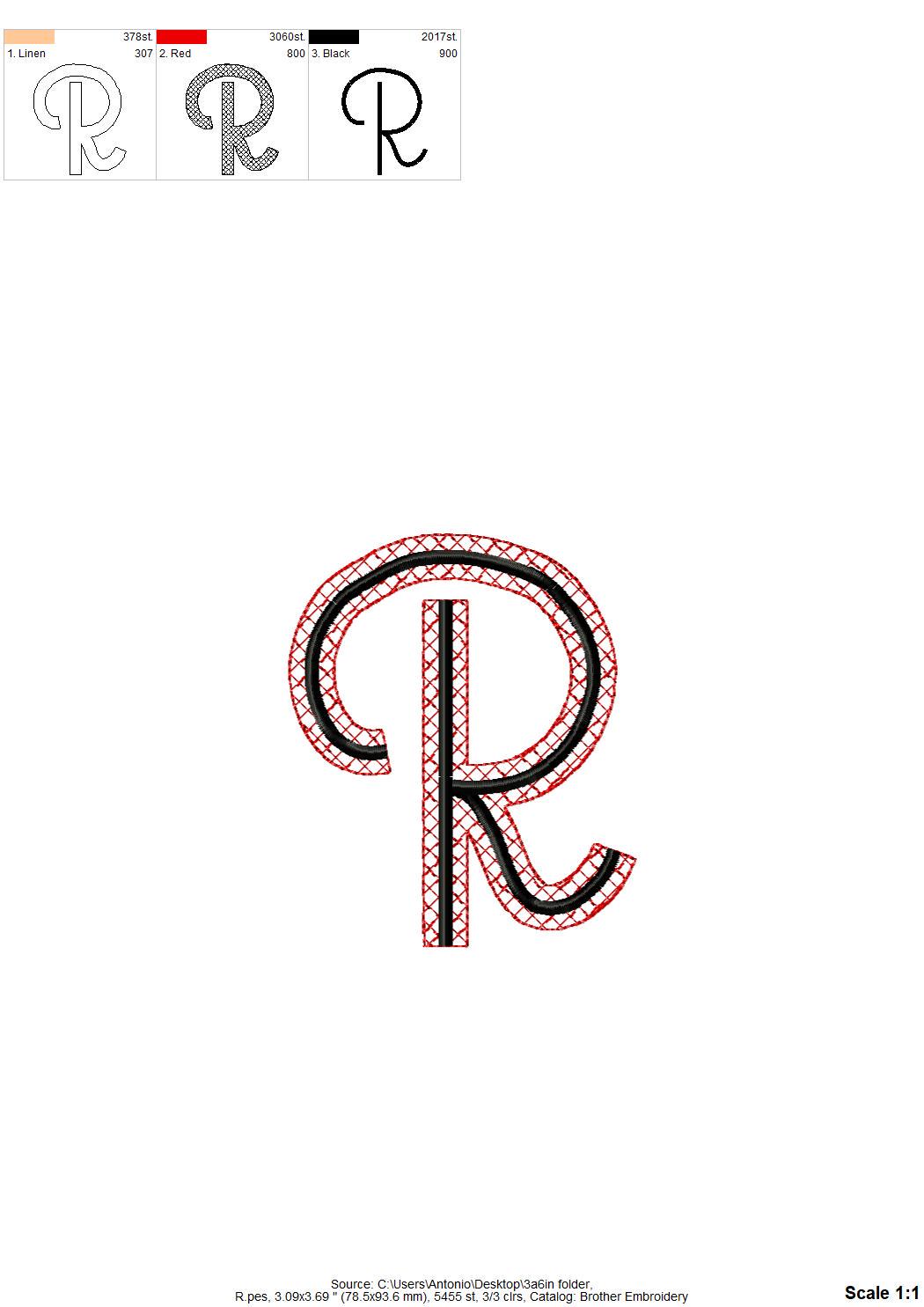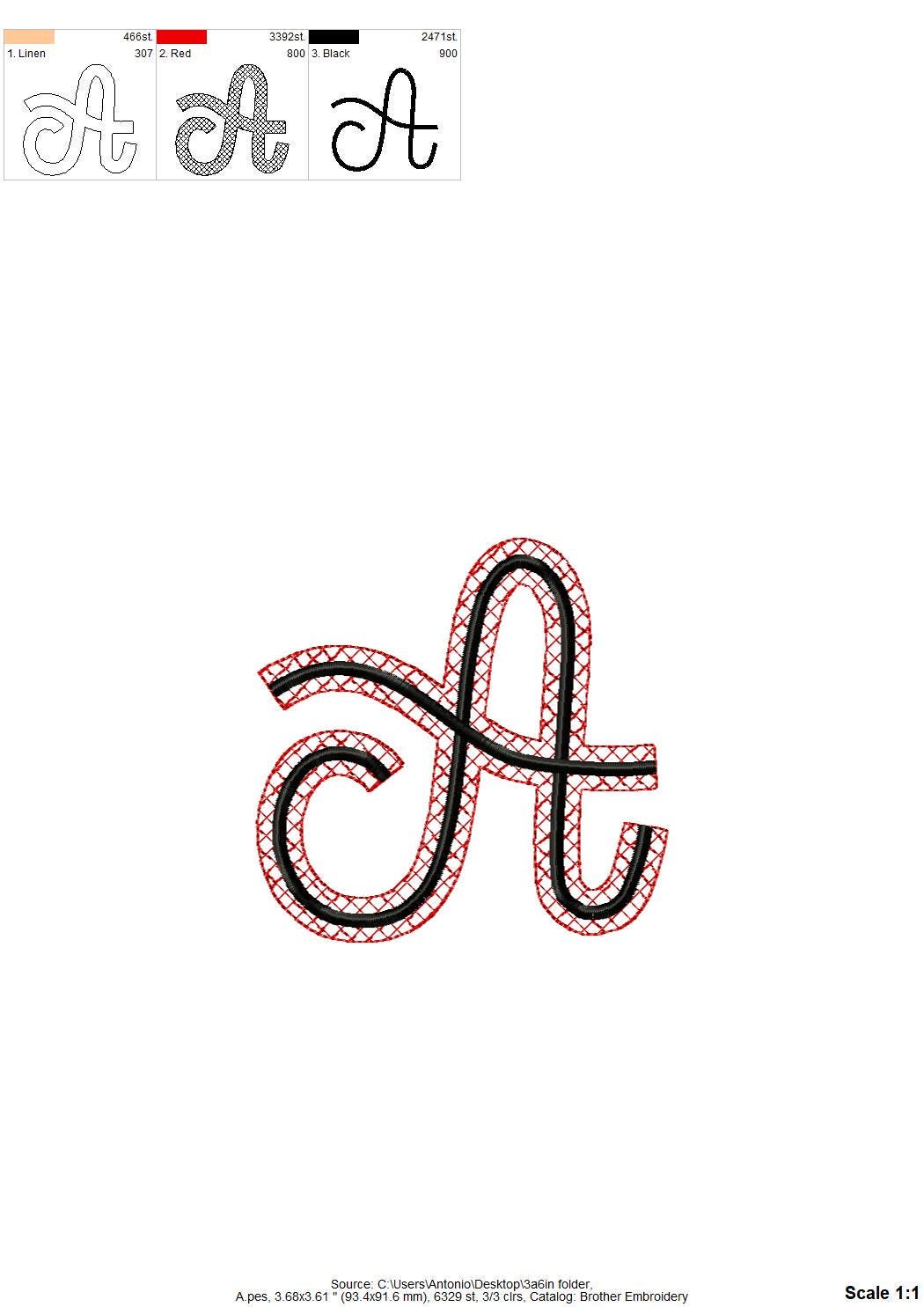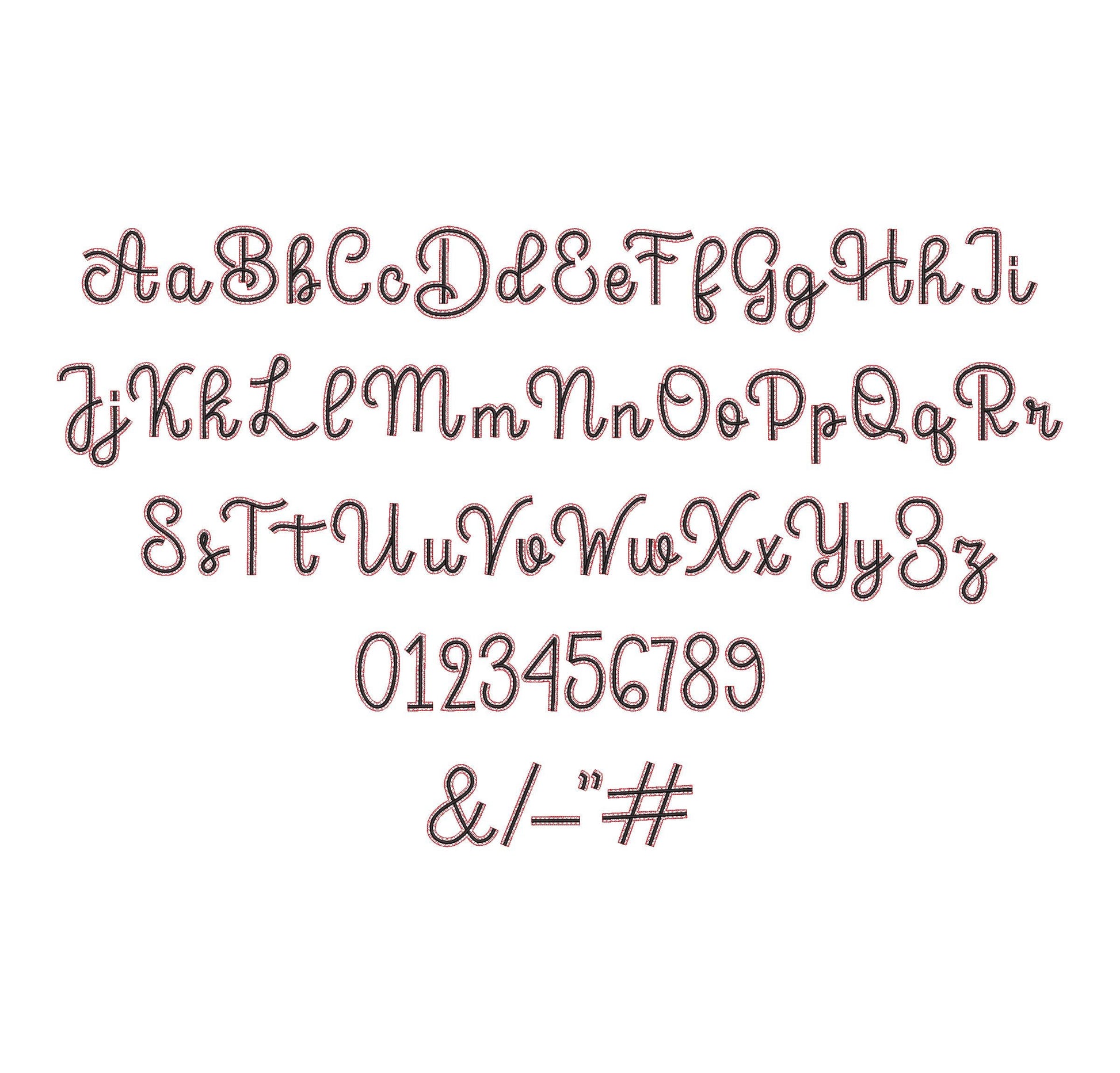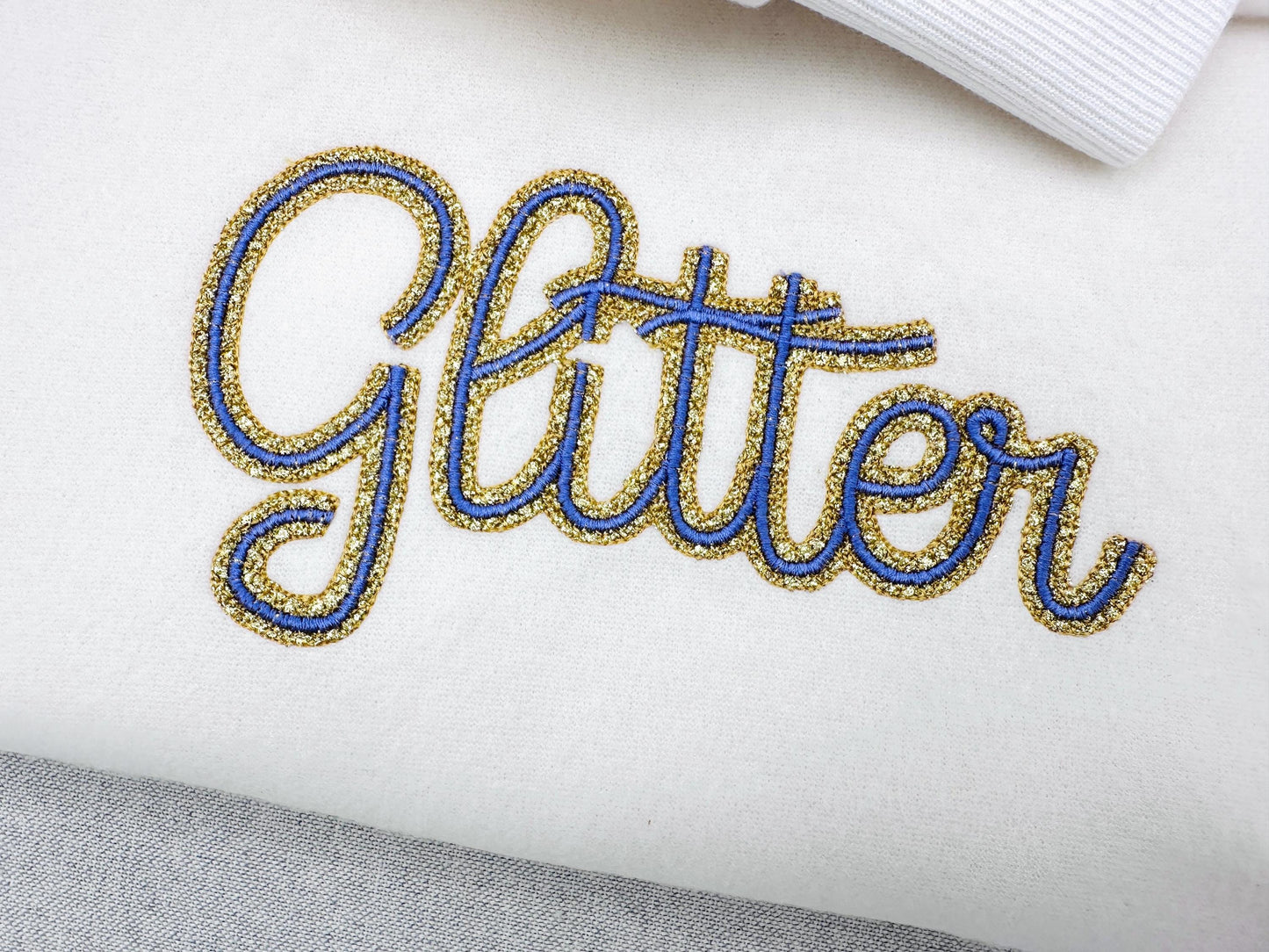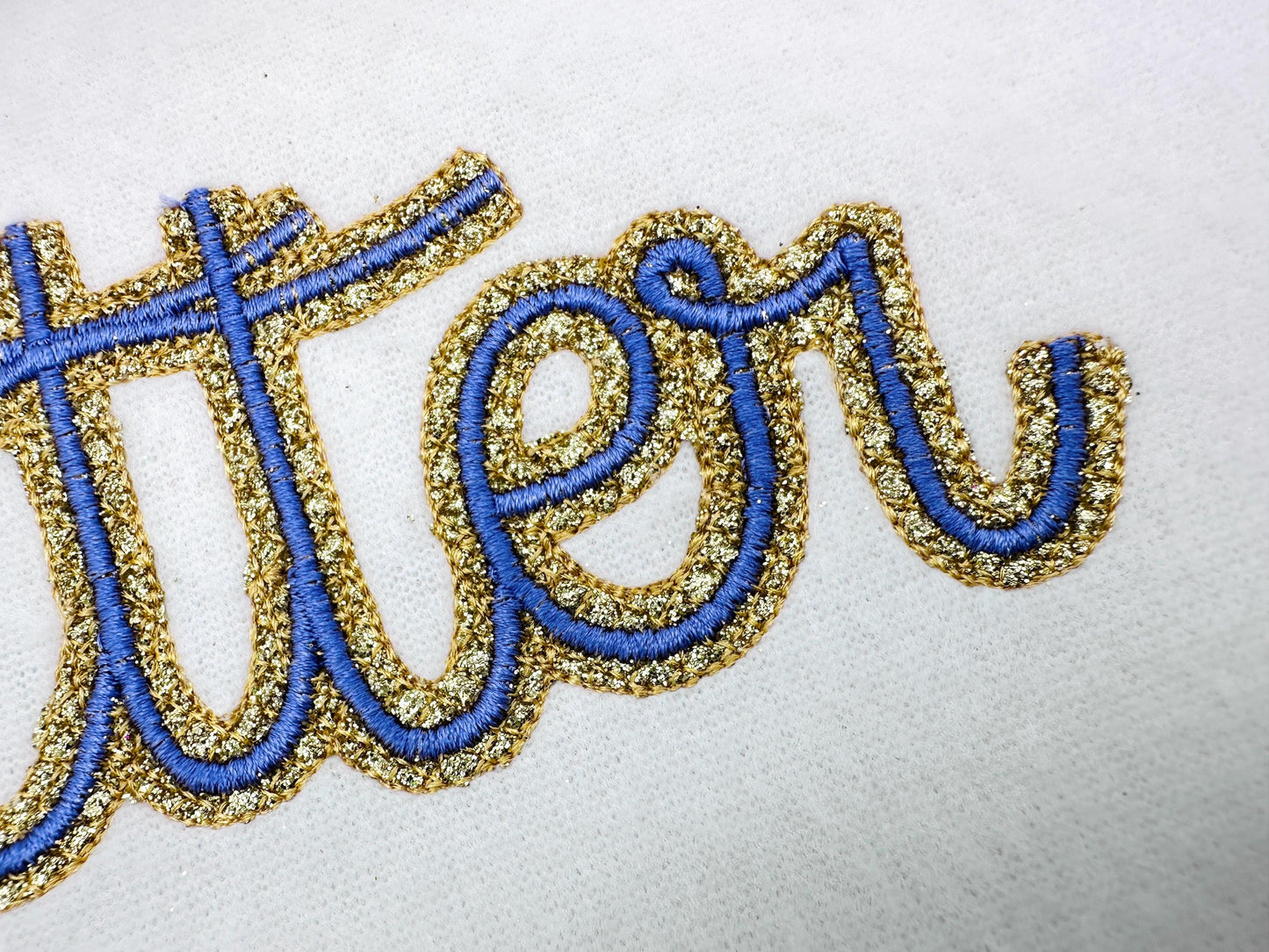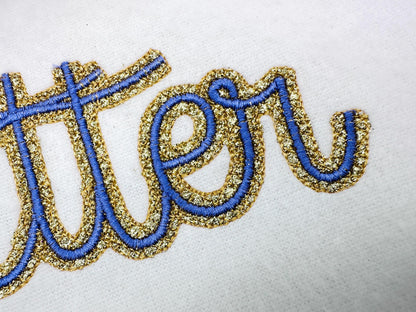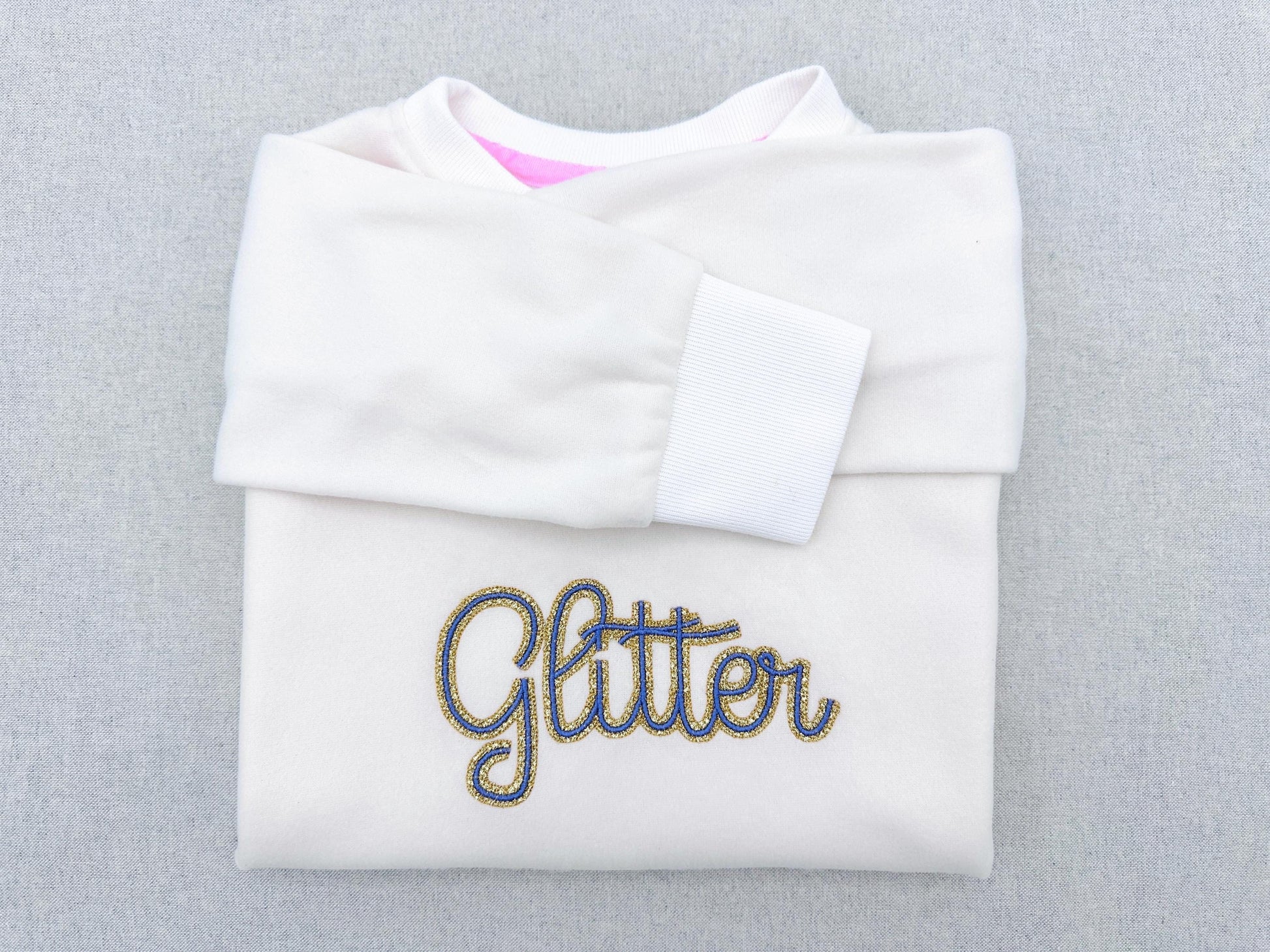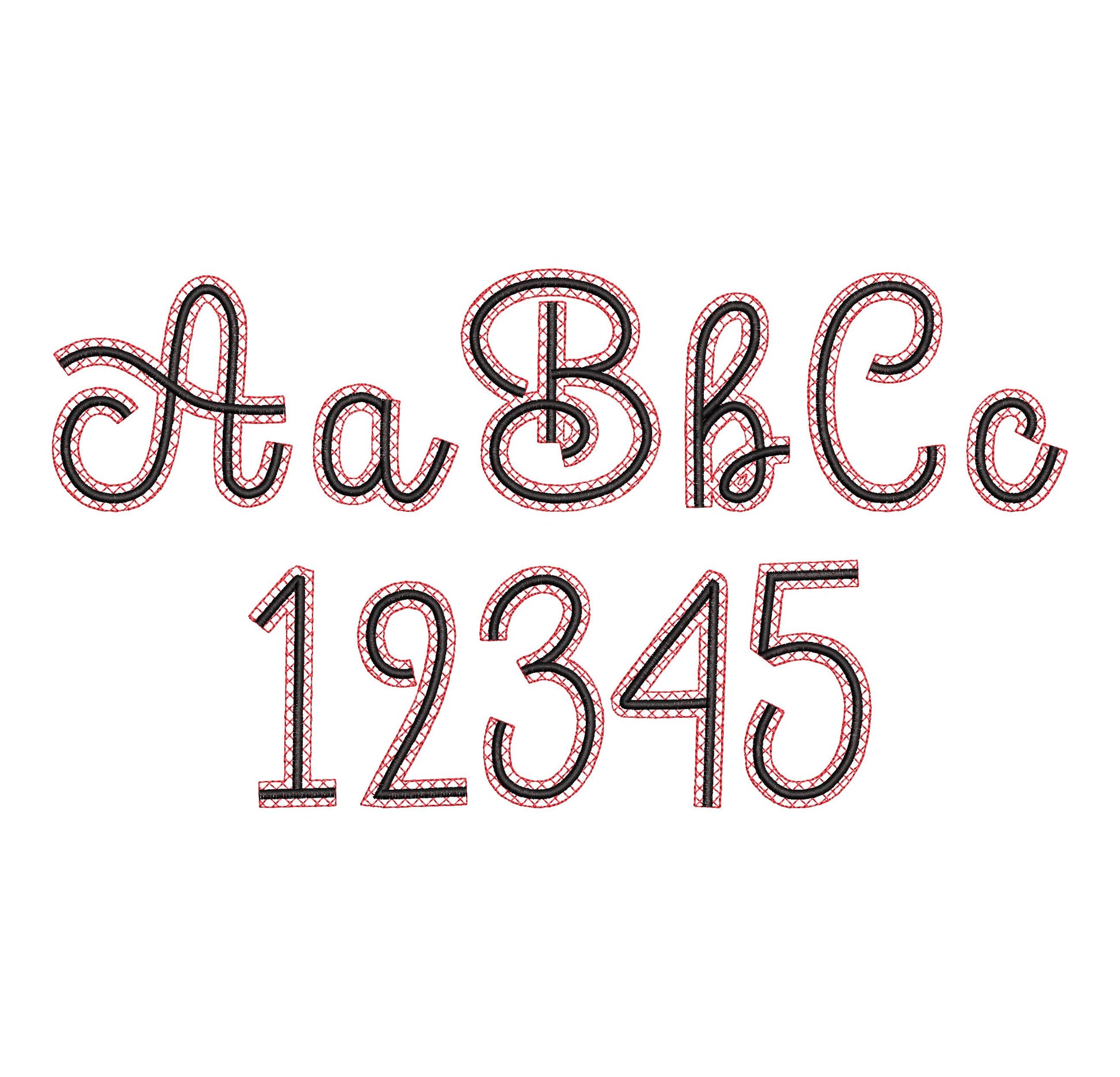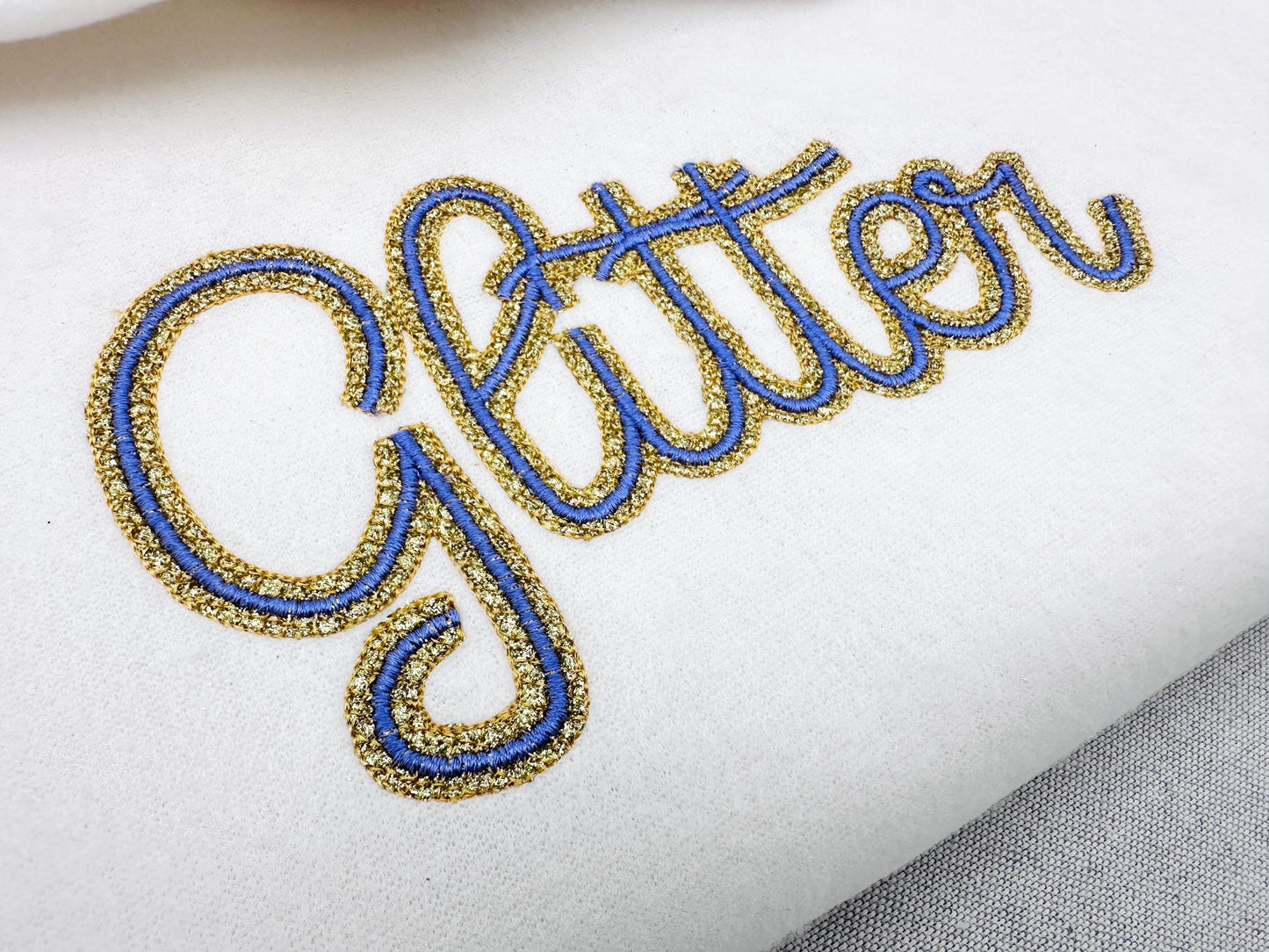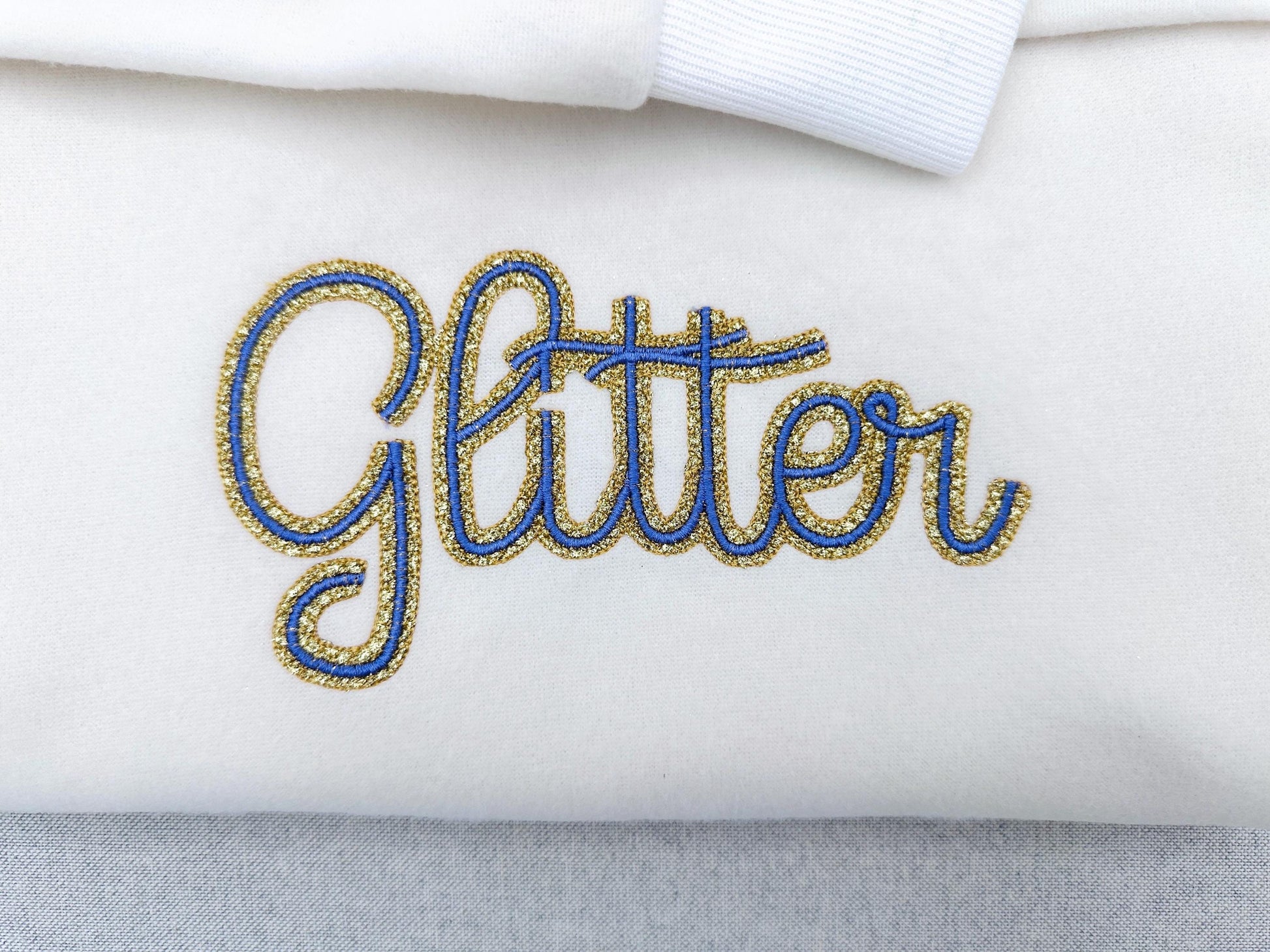
Or click to open the linkA handwritten font with a glitter heat transfer vinyl layer and a satin stitch edge. Sparkly names and monograms on shirts, bags and party outfits.
The letters come in four sizes: 2.3, 2.9, 3.6 and 4.3 inches. Glitter vinyl is stitched down like applique and finished with a satin stitch edge. Where connected letters meet, the outlines may overlap a little; glitter vinyl or glitter faux leather with a matching thread hides it. Includes uppercase and lowercase letters, numbers 0 to 9 and punctuation.